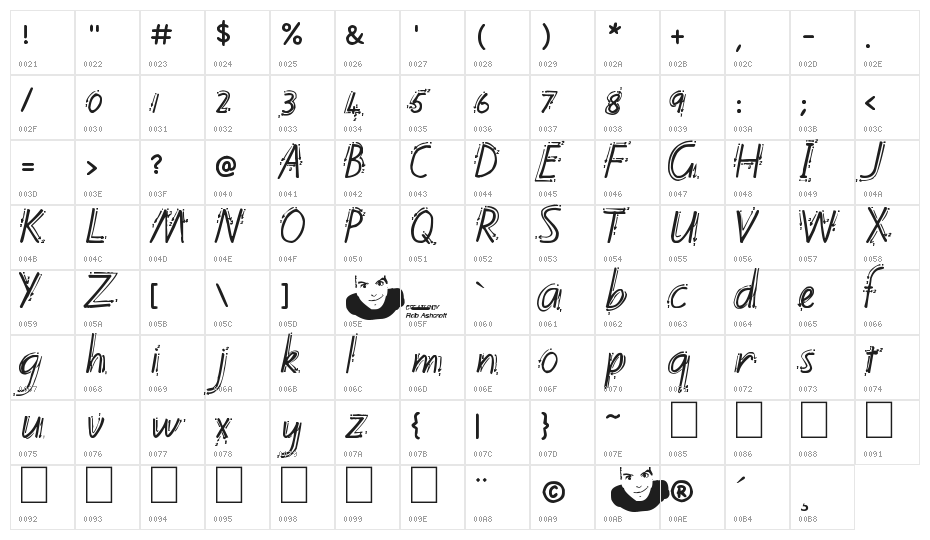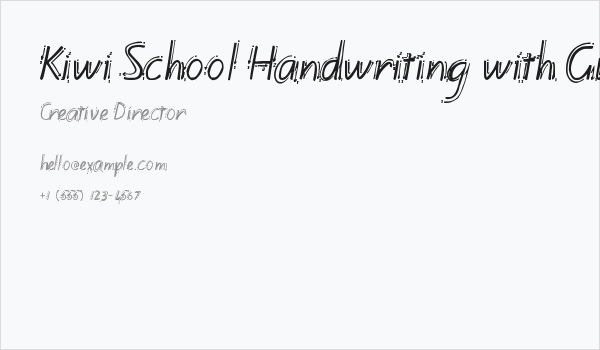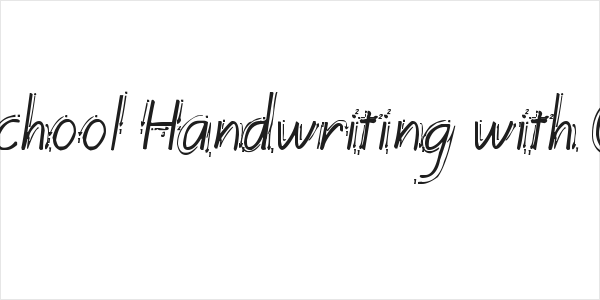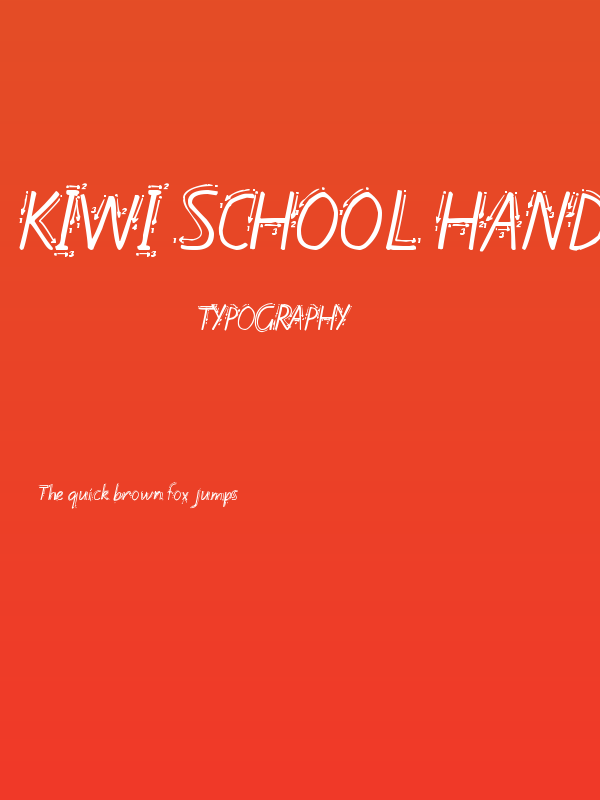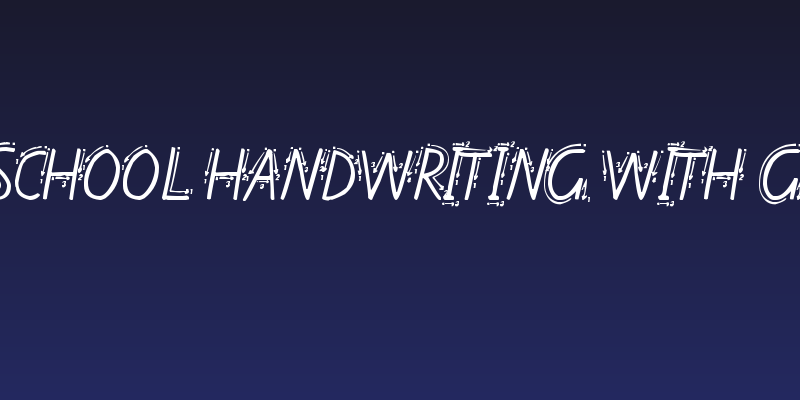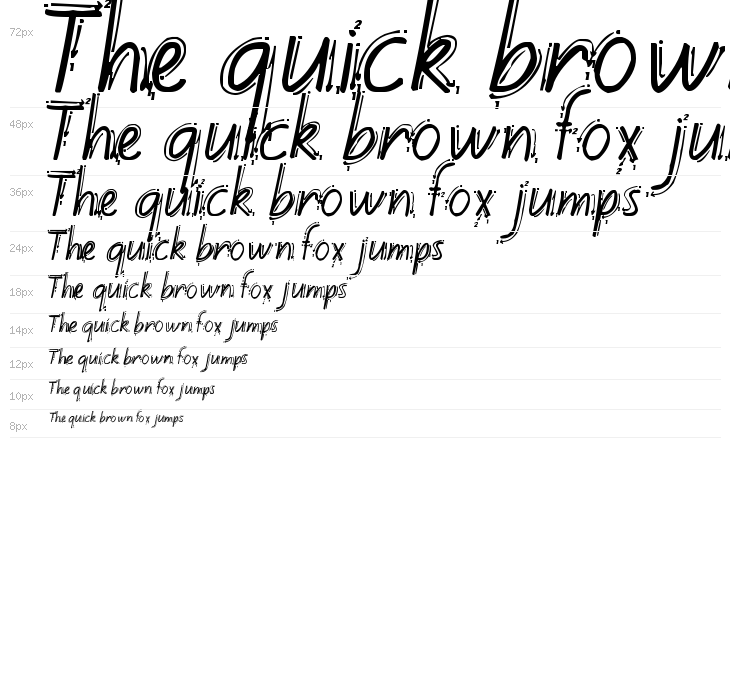
Kiwi School Handwriting with Guides Font
Kiwi School Handwriting with Guides Description
This font features a playful and dynamic style, reminiscent of handwriting with a touch of whimsy. The characters are slightly slanted, giving an informal and friendly appearance. Each letter is outlined with a bold, sketch-like quality, adding a sense of movement and energy. The uppercase and lowercase letters maintain a consistent style, with rounded edges and varying stroke thicknesses that suggest a handwritten feel. Numbers and special characters follow the same playful design, making the font versatile for creative projects. The overall look is casual and approachable, suitable for educational materials or children's content.
| Overall Style | Playful, Informal |
| Use Case | Headlines, Educational materials, Creative projects |
| Proposed Projects | Ideal for educational materials, children's books, playful branding, and creative design projects. |